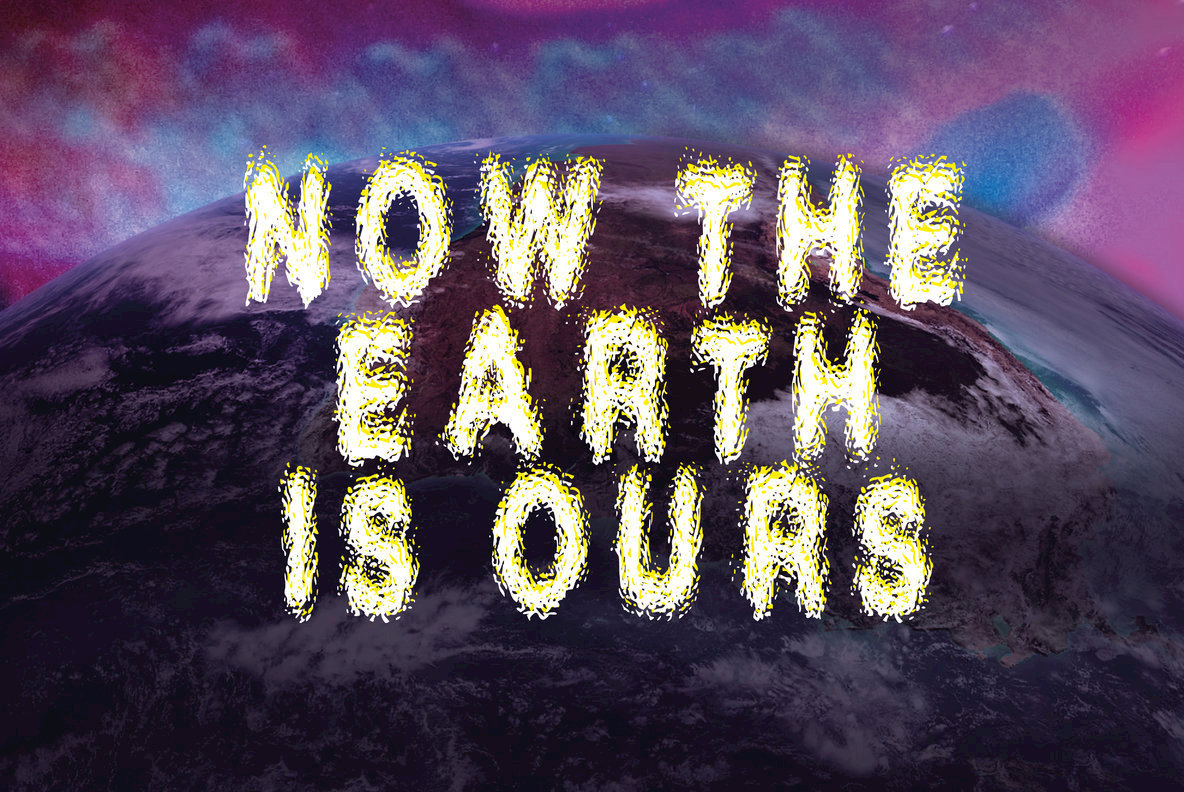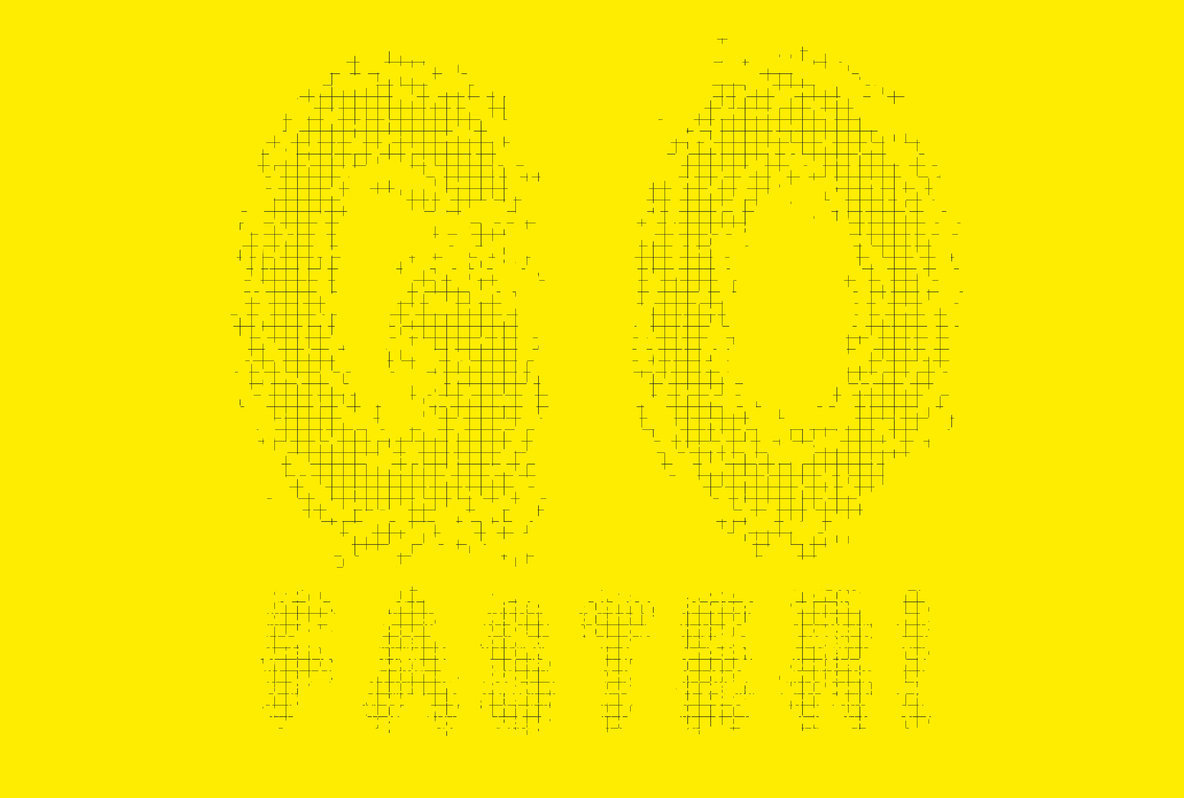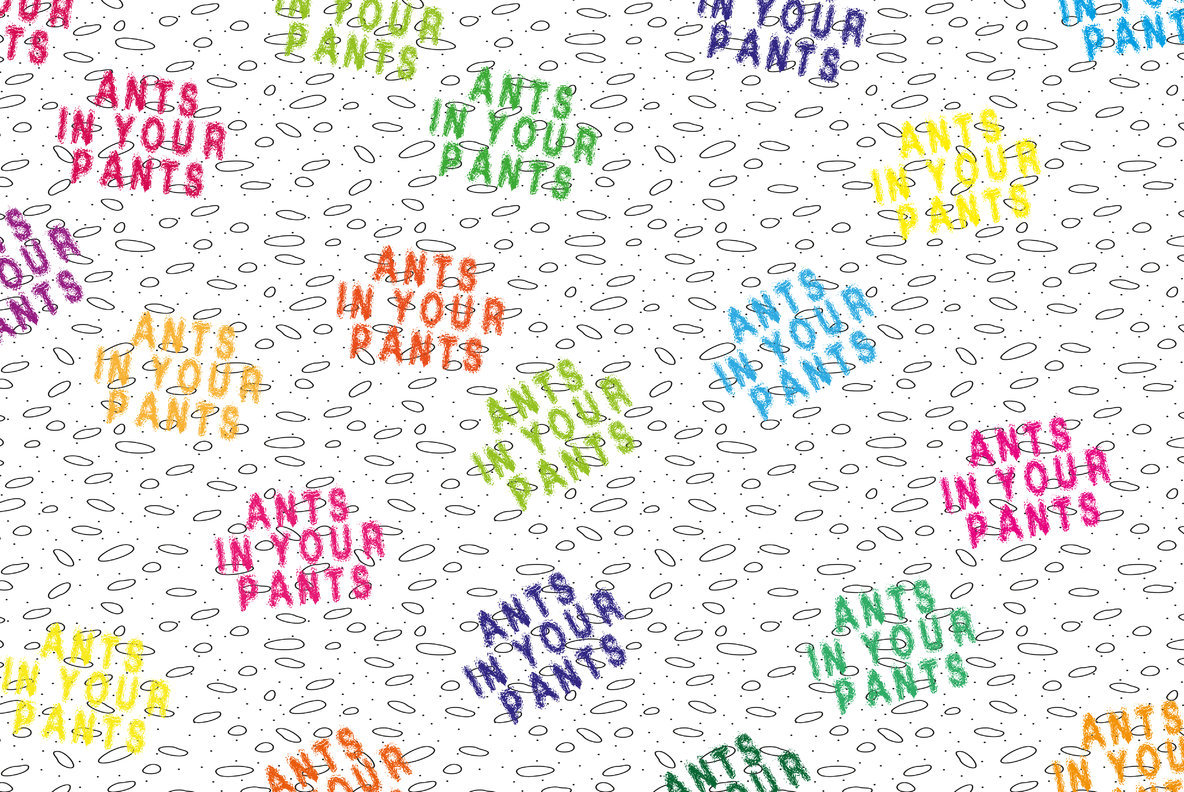
Xplode Font
Xplode Regular
A font that is literally in mid explosion. For mad scientists and wannabe wizards that like a pop, bang and fizz in there typography. Use with caution!
This font was created by Benjamin A Melville and features a full upper and lower case alphabet including 0-9 and some punctuation, please see glyphs list for all characters you will be able to work with.